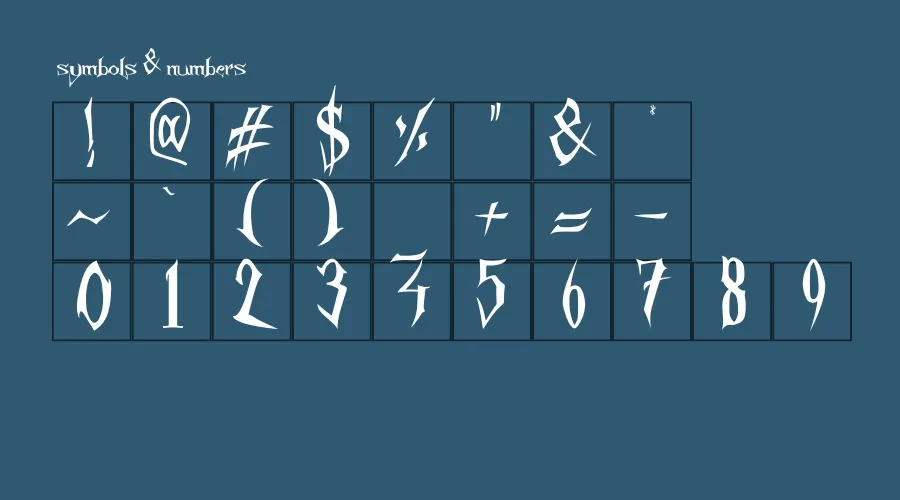
Witch Font
About Witch Font
Witch Font is an incredible creation by Black letter Studio, a type foundry run by creative typesetters with years of experience and a real passion for designing fonts With a strong focus on this type of typeface, this Fonts range contains a selection of truly eye-catching typefaces that are sure to catch the eye of any keen observer.
This font is a fancy typeface that has been carefully crafted to feel accessible, yet holds a certain level of mysticism and charm. Perfect for both personal and commercial projects, Witchy Fonts will help take your text to the next level. This typeface is available in both Regular and Bold weights, offering plenty of flexibility.
The elements used in creating these custom fonts are inspired by nature, making them uniquely powerful, yet still familiar and attainable. Each font is lovingly crafted from scratch, ensuring that it stands out from the crowd and is perfect for any project.
Due to its stylish design and its good-looking, it can be used for many types of design projects. For example, You can create any type of logos and branding applications, website design, packaging, brochures and flyers, posters, signs, stationery, and banners as well as other types of printed materials as well as for digital designs.
What Font is a Perfect Pairing Font with Witch Font?
Exo 2 font, Cooper Hewitt heavy font, and Archivo Black font is the perfect font that goes well with Witch font.
Is Witch Font a good font?
Yes, Due to its stylish design and its good-looking, it can be used for many types of design projects. For example, You can create any type of logos and branding applications, website design, etc.
What Kind of font is Witch Font?
Witch font is a fancy typeface that has been designed by the Black letter Studio, a type foundry run by creative typesetters with years of experience.